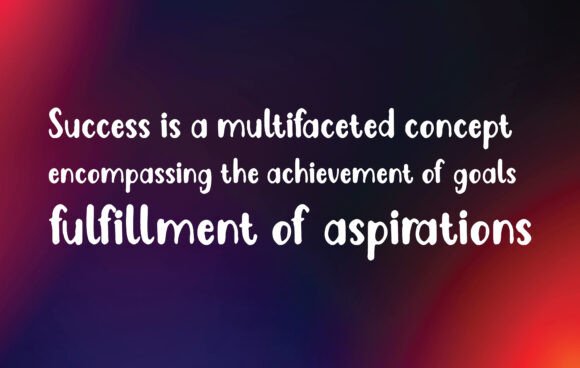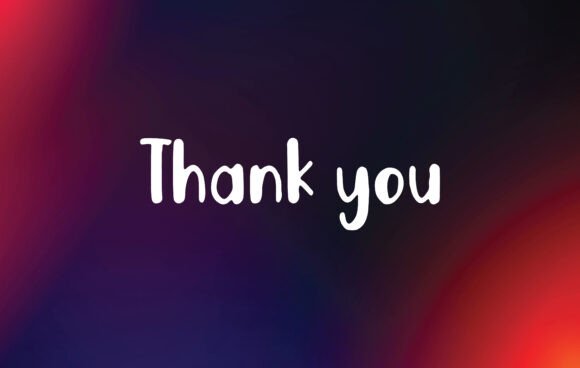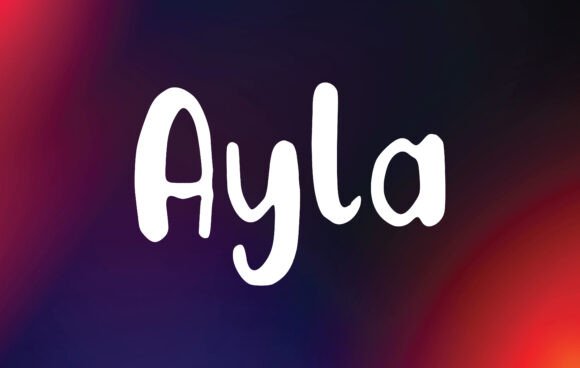
Ayla Font: The Ultimate Go-to Favorite for Creative Projects
Are you tired of using the same old fonts for your creative projects? Look no further than Ayla Font, a versatile and eye-catching font that’s perfect for bringing your ideas to life. With its clear and easy-to-read design, Ayla Font is an excellent choice for both titles and body text, making it a great addition to any designer’s toolkit.
What Makes Ayla Font So Special?
Ayla Font is designed to be a go-to favorite for creatives, and for good reason. Its unique blend of style and legibility makes it perfect for a wide range of projects, from magazine covers and t-shirts to social media posts and wedding invitations. Whether you’re a professional designer or a crafty DIY enthusiast, Ayla Font is sure to become a staple in your design arsenal.
Key Features of Ayla Font
• Versatility: Ayla Font is designed to be versatile, making it perfect for use in a variety of creative projects.
• Eye-catching design: With its unique and stylish design, Ayla Font is sure to grab attention and make your projects stand out.
• Clear and easy to read: Despite its stylish design, Ayla Font is clear and easy to read, making it perfect for both titles and body text.
• Multi-purpose: Ayla Font is suitable for use in a wide range of projects, from magazine covers and t-shirts to social media posts and wedding invitations.
Ayla Font is perfect for designers and crafters who want to add a touch of style and personality to their projects. Whether you’re creating professional marketing materials or fun DIY crafts, Ayla Font is sure to help you achieve your creative vision. Its versatility and legibility make it an excellent choice for:
• Magazine covers: Use Ayla Font to create eye-catching headlines and titles that grab attention.
• T-shirts and apparel: Add a stylish touch to your t-shirt designs with Ayla Font.
• Social media posts: Use Ayla Font to create engaging and shareable social media posts that stand out from the crowd.
• Branding: Ayla Font is perfect for use in branding materials, such as logos and business cards.
• Wedding invitations: Add a touch of elegance and sophistication to your wedding invitations with Ayla Font.
• Greeting cards: Use Ayla Font to create beautiful and heartfelt greeting cards for any occasion.
Tips for Using Ayla Font
To get the most out of Ayla Font, here are a few tips to keep in mind:
• Experiment with different sizes: Ayla Font looks great in a variety of sizes, from large headlines to smaller body text.
• Play with colors: Try pairing Ayla Font with different colors to create a unique and eye-catching design.
• Mix and match: Don’t be afraid to mix and match Ayla Font with other fonts to create a unique and interesting design.
In conclusion, Ayla Font is a versatile and eye-catching font that’s perfect for bringing your creative ideas to life. With its clear and easy-to-read design, Ayla Font is an excellent choice for both titles and body text, making it a great addition to any designer’s toolkit. Whether you’re a professional designer or a crafty DIY enthusiast, Ayla Font is sure to become a staple in your design arsenal. So why wait? Give Ayla Font a try today and see the difference it can make in your creative projects!